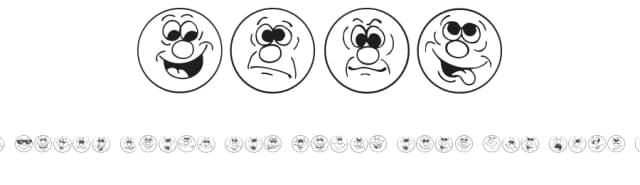
About Shady Characters Font
Shady Characters is a decorative font designed by West Wind Fonts. It includes 69 glyphs, a medium weight, TTF (TrueType) format, and 89 languages. Shady Characters is free to download; check the license details on this page before commercial use. Decorative fonts like Shady Characters work best for logos, posters, packaging, and standout headlines.
Shady Characters Font is a decorative font that shines as a display or heading face. Pair it with a clean sans-serif or serif font for body text β the contrast creates a clear hierarchy while the two styles stay balanced and easy to read.
Shady Characters Font
Shady Characters Font is a decorative typeface by West Wind Fonts, ideal for logos, invitations, branding, and creative projects.